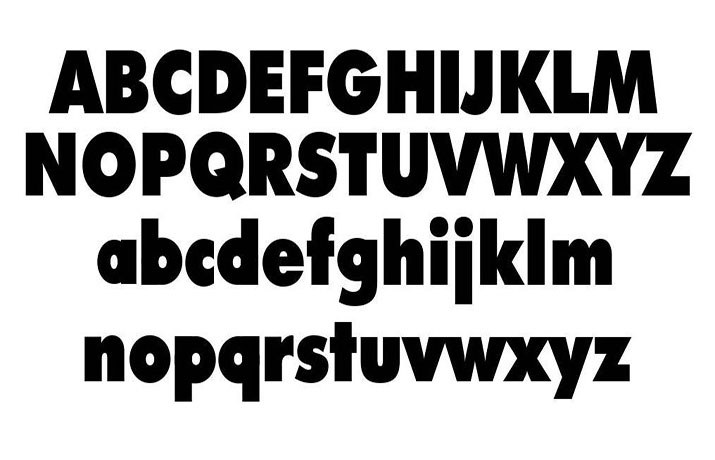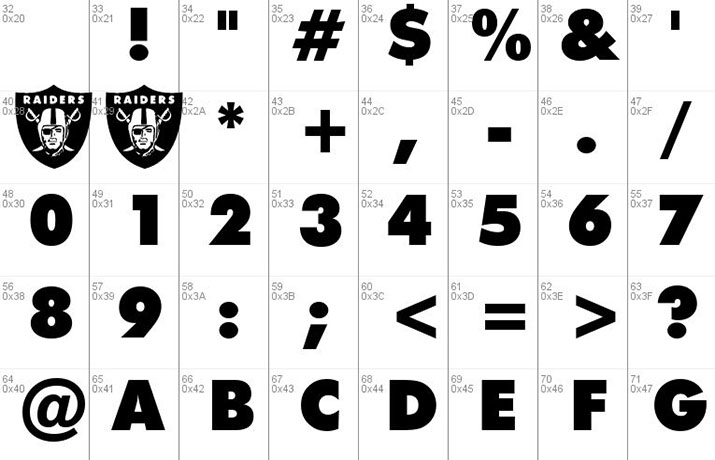
Raiders Font is a fancy display typeface that has a bold and blocky look. It was designed and published by Sharkshock.
All textures have extra rounded thick strokes that maintain the basic yet sporty look. But its characters feature modern textures with sharpness at the end of the letters.
Its best qualities help to make it famous in the design industry. You can use it for various purposes such as posters, headers, team shirt numbers, comics, titles, banners, flyers, and more.
- It is a popular font because of its design. So, you can use it for banner ads, book covers, special event cards, game titling, product designs, cartoon posters, comics titles, headers, titles, social media posters, signs, posters, comic headlines, kids’ bags, stationery print, unique logos, and product designs.